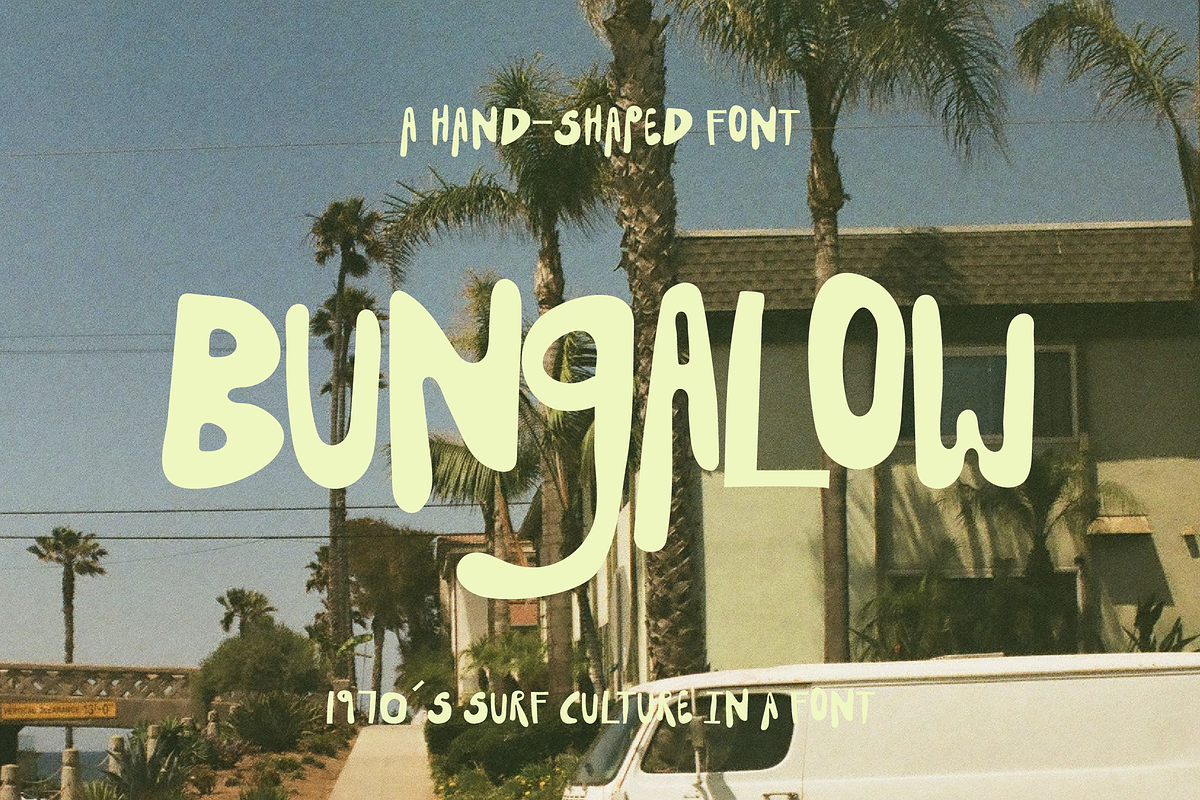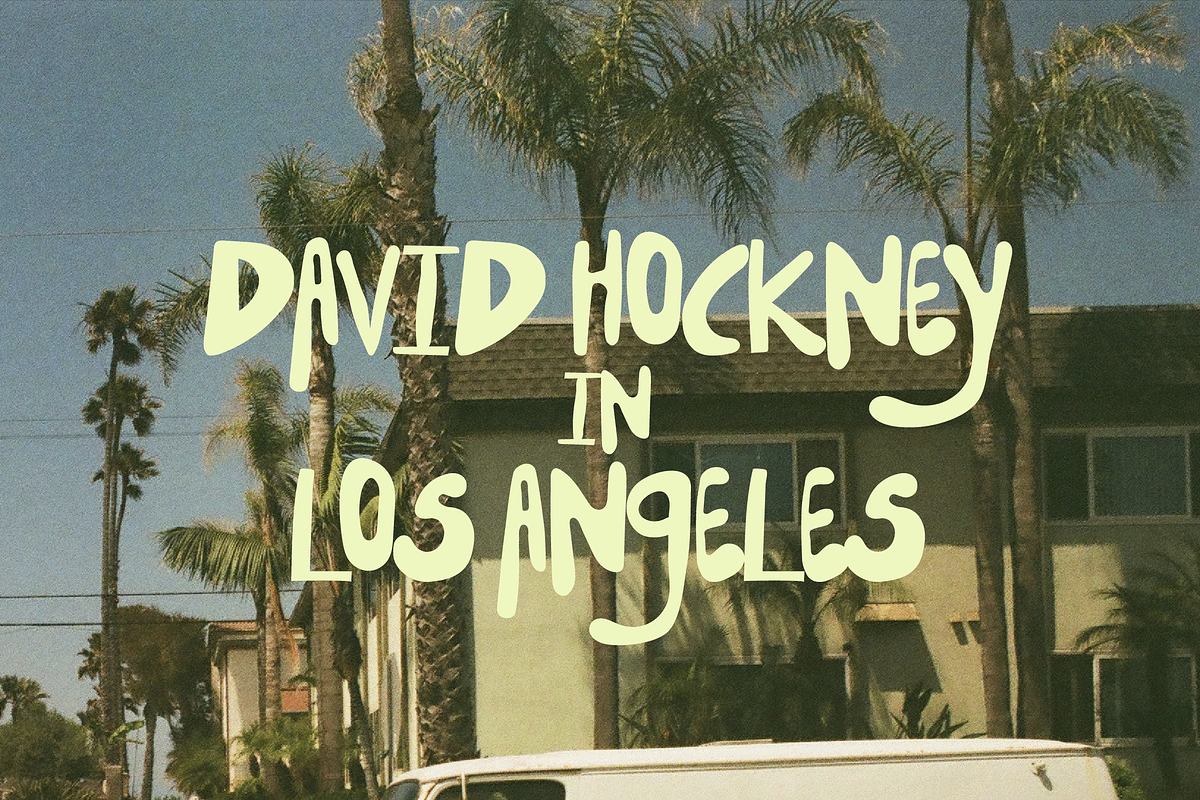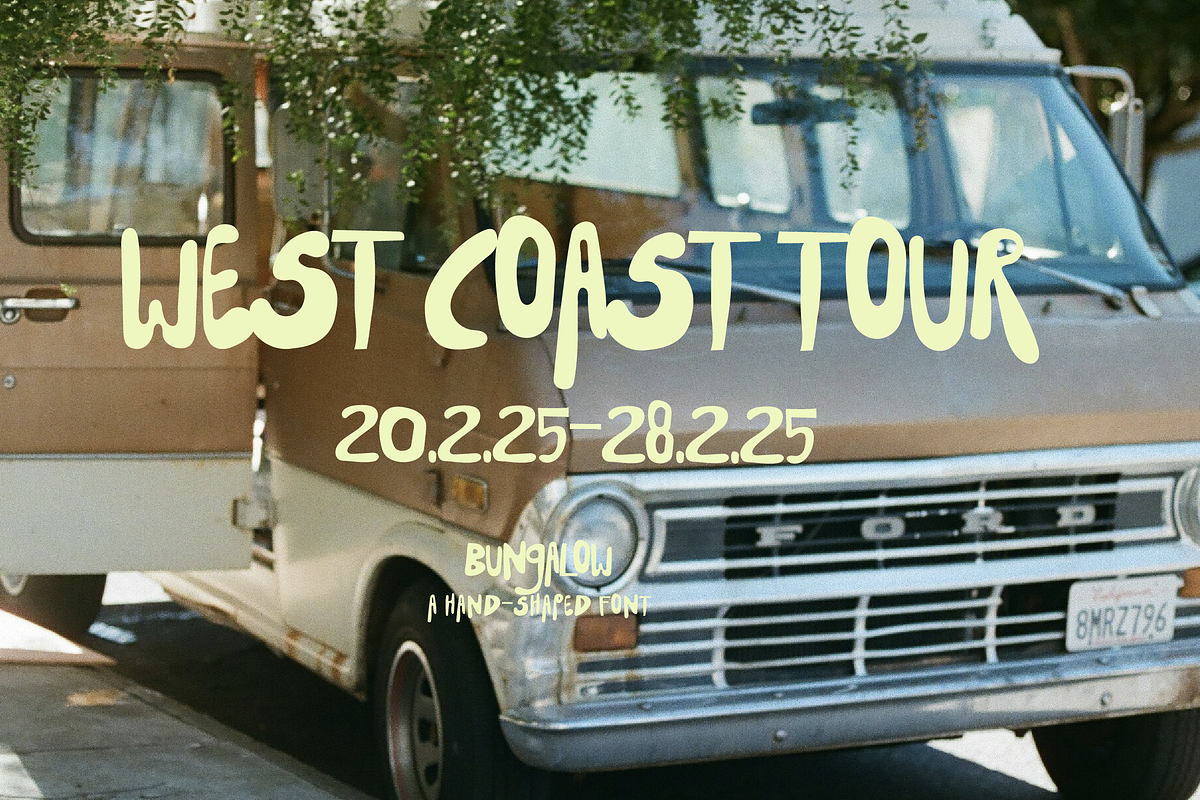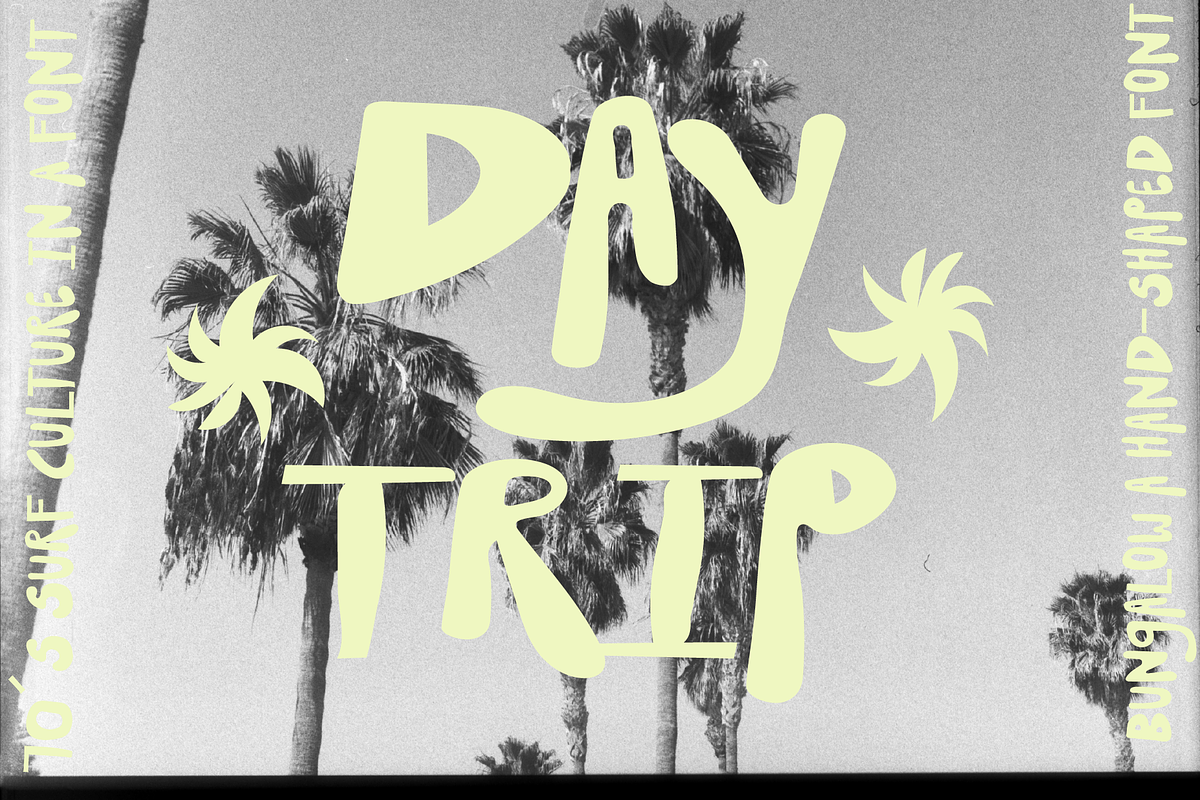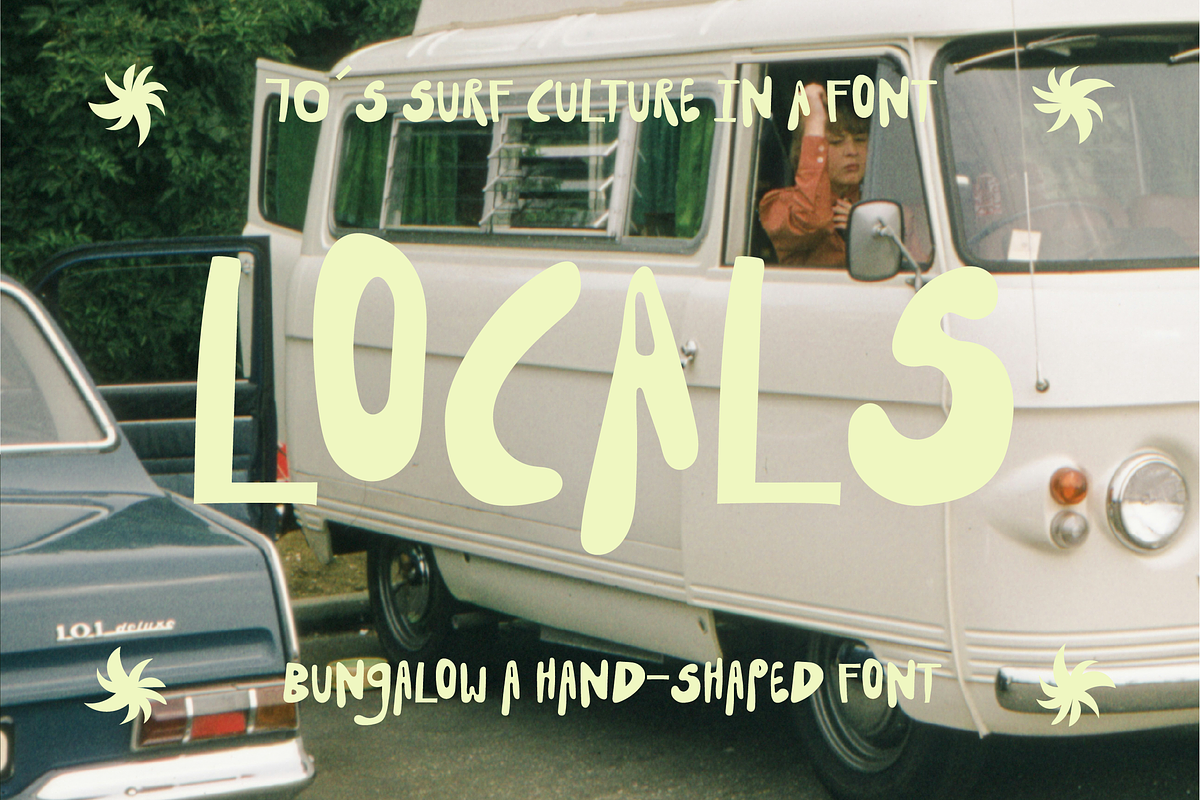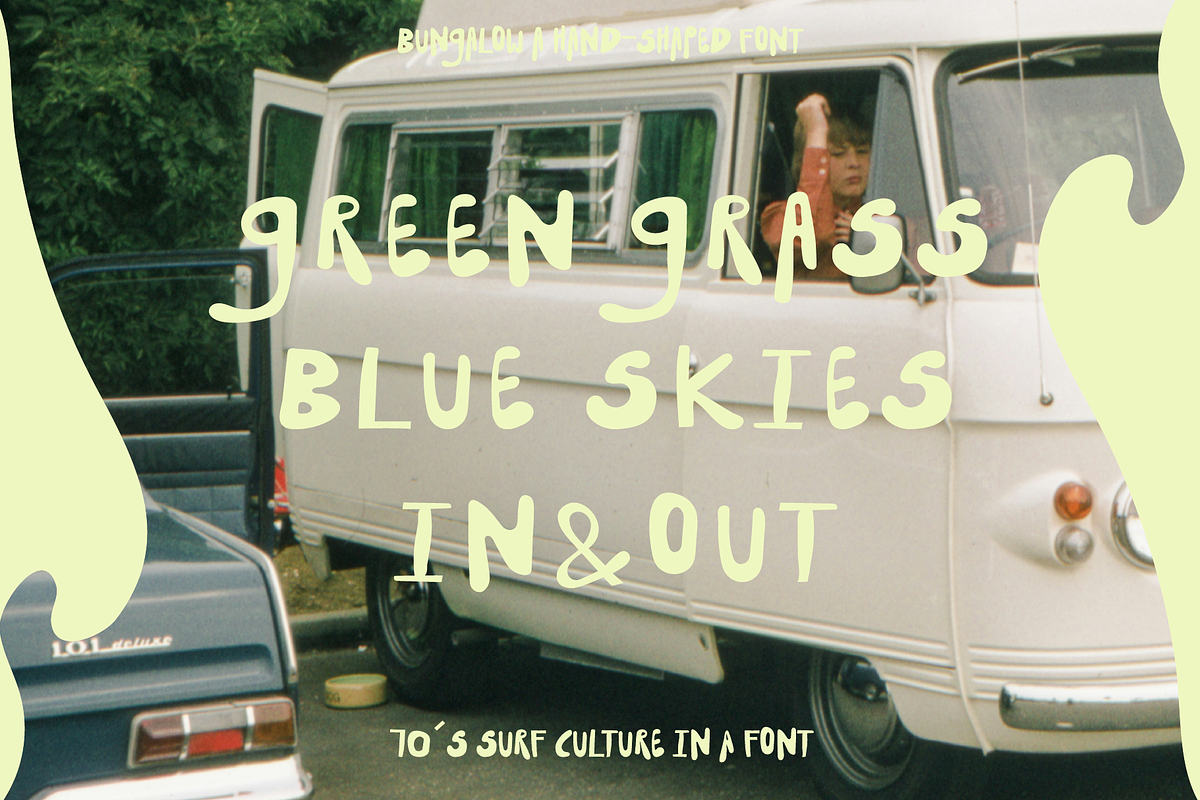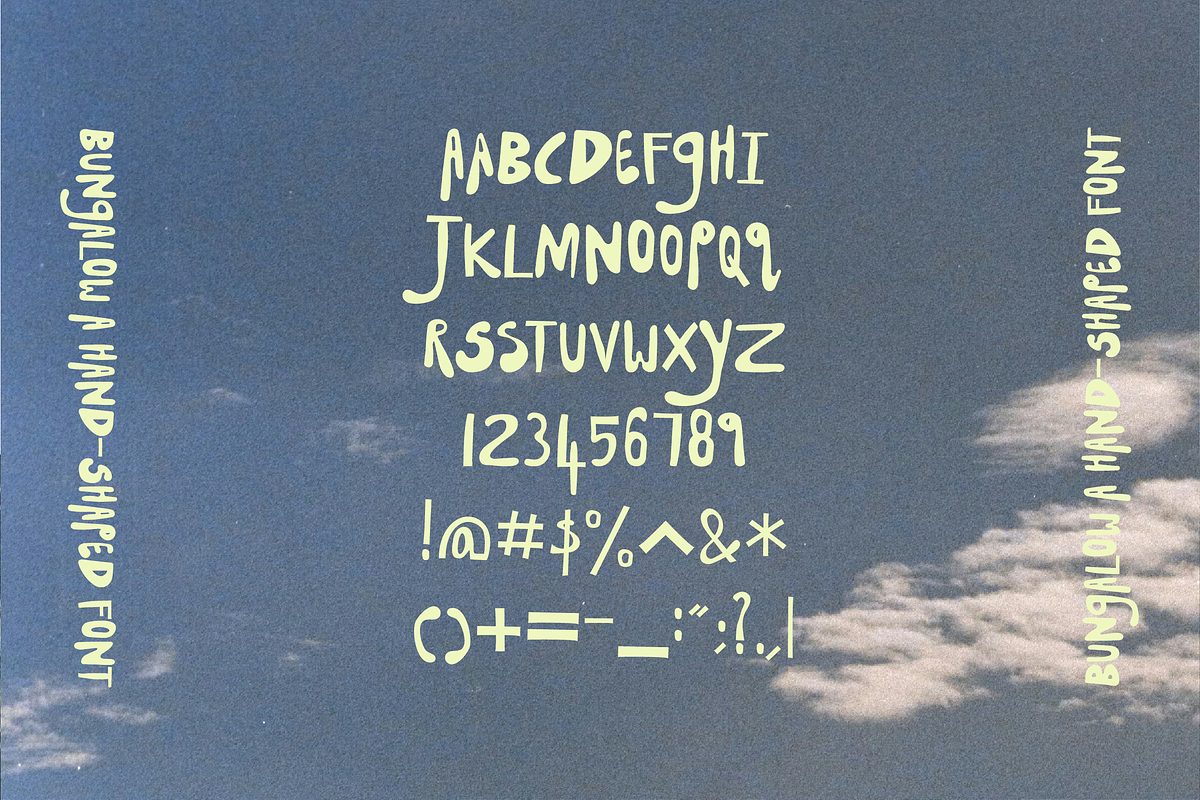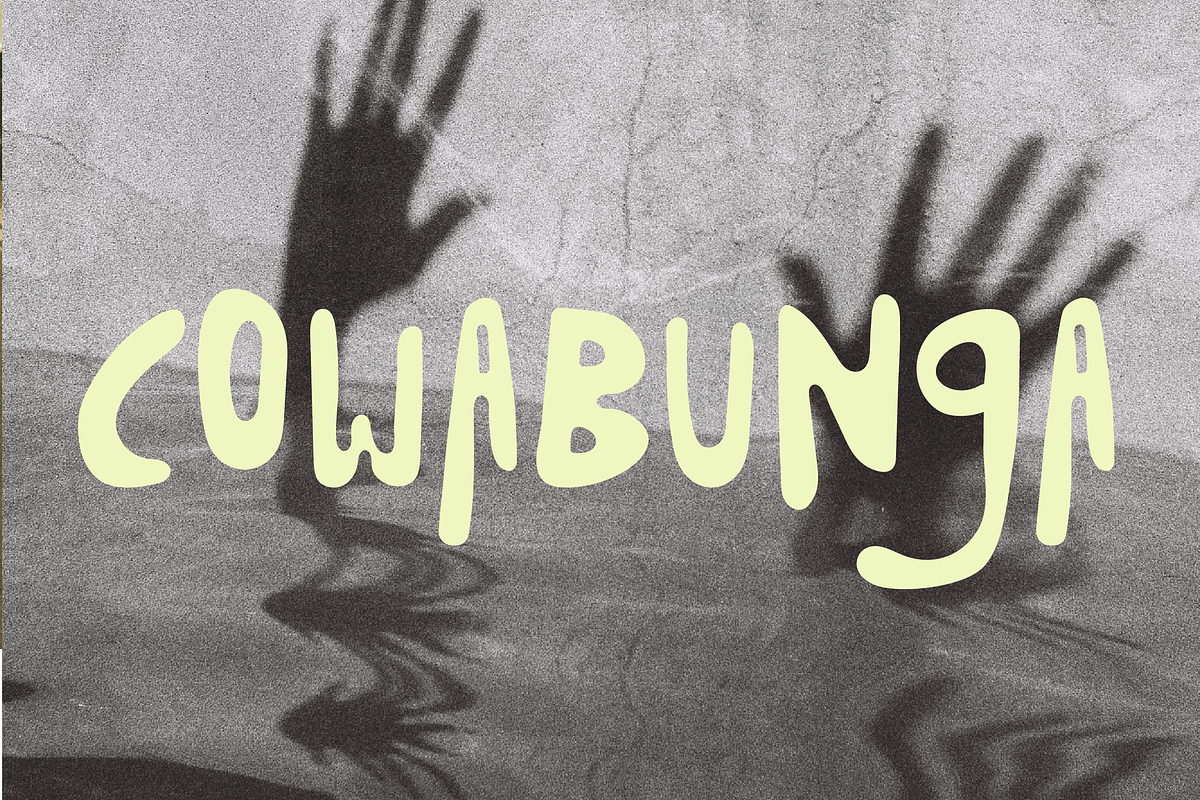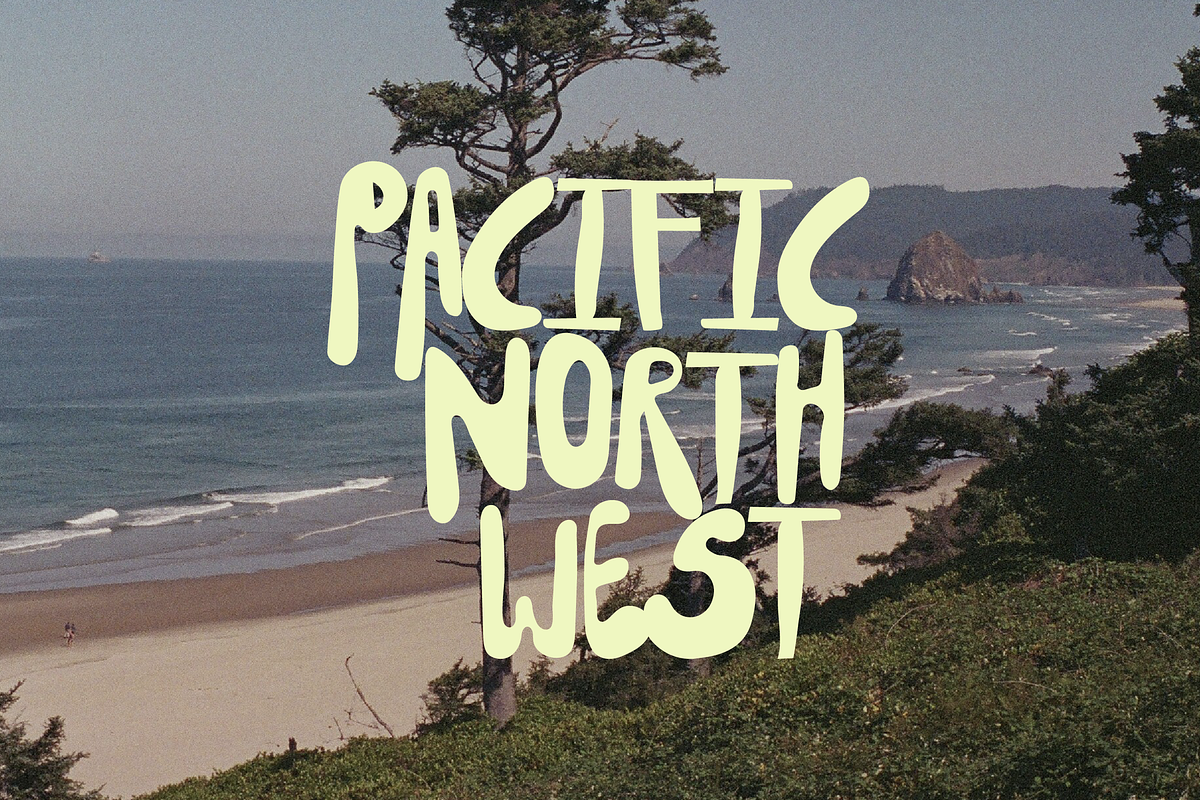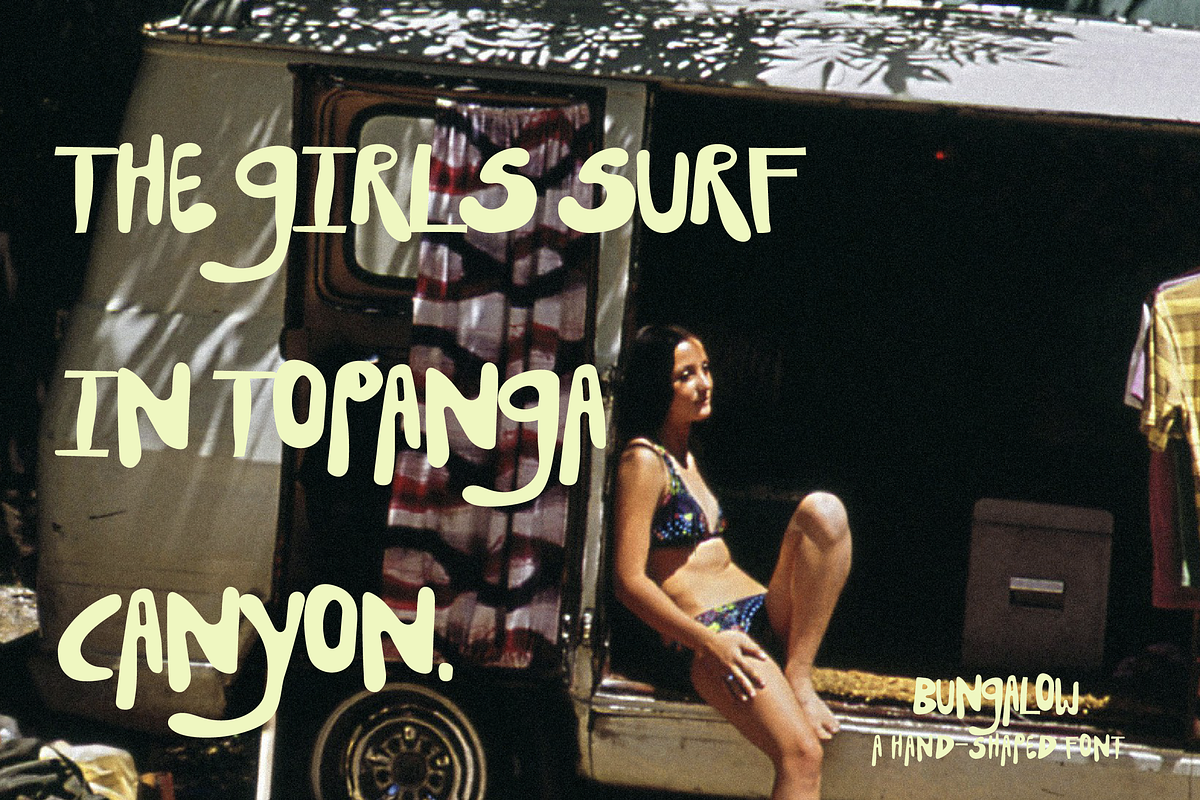
Bungalow - Hand Drawn Surf Font
A little sun-faded, a little nostalgic, and full of coastal character.
Meet BUNGALOW, a playful hand-drawn display font inspired by 1970s California surf culture, vintage coastal lettering and the laid-back charm of Aotearoa New Zealand's beach towns.
Originally created for a longboard surfboard shaper and glasser in Whangamatā, New Zealand, BUNGALOW began as a custom hand-drawn logo before developing into a complete display typeface.
With its relaxed letterforms, subtle irregularities and beautifully imperfect handmade character, BUNGALOW takes inspiration from vintage surfboard graphics, beachside signage, old surf magazines, hand-painted lettering and sun-faded printed ephemera.
Warm, expressive and full of personality, BUNGALOW is designed for creative projects that need an easygoing, nostalgic feeling without looking overly polished or manufactured.
PERFECT FOR
Surf brands and coastal lifestyle branding
Vintage-inspired logos and wordmarks
T-shirt graphics and surf merchandise
1970s-inspired posters and print design
Independent cafés and beachside businesses
Packaging and product labels
Record sleeves and music artwork
Editorial layouts and surf publications
Summer events, festivals and signage
Creative projects with a handmade, nostalgic feel
FONT FEATURES
Uppercase A–Z: Original hand-drawn letterforms with relaxed, irregular character.
Selected Alternates: Additional character variations for more creative flexibility.
Numbers 0–9: Matching numerals.
Limited Basic Punctuation
Selected Accented Characters: A limited collection of non-English glyphs.
BUNGALOW is an intentionally imperfect, hand-drawn display font. Its irregular proportions and organic details are part of its character.
Best suited to logos, headlines, short phrases, posters and expressive display lettering rather than long passages of body text.
DESIGNED BY MADELINE O'DONOGHUE
Original hand-crafted fonts inspired by vernacular lettering, vintage printed ephemera, art, music and the beautifully imperfect nature of handmade design.
Sun-faded. Hand-drawn. Nostalgic. Made for the coast.